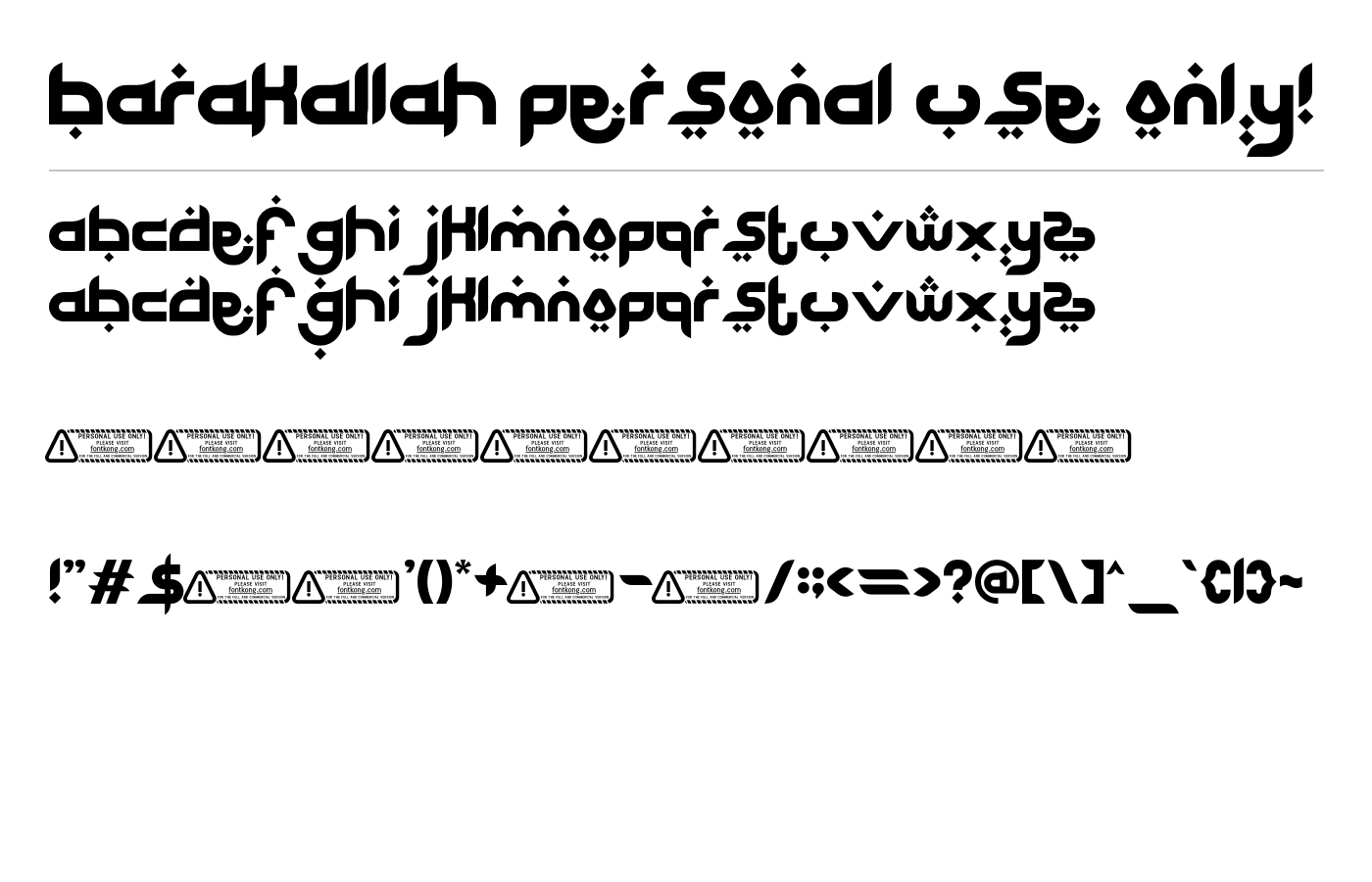
Barakallah is a bold, geometric sans serif font with a futuristic and unique design, characterized by its thick strokes, high x-height, and distinctively shaped letters that blend sharp angles with smooth curves. This font carries a modern and tech-inspired personality, making it suitable for striking headlines, branding in creative industries, or digital projects where a strong, memorable typeface is needed. Its compact letter spacing and innovative styling invite attention and lend an edgy, modern vibe to any design.